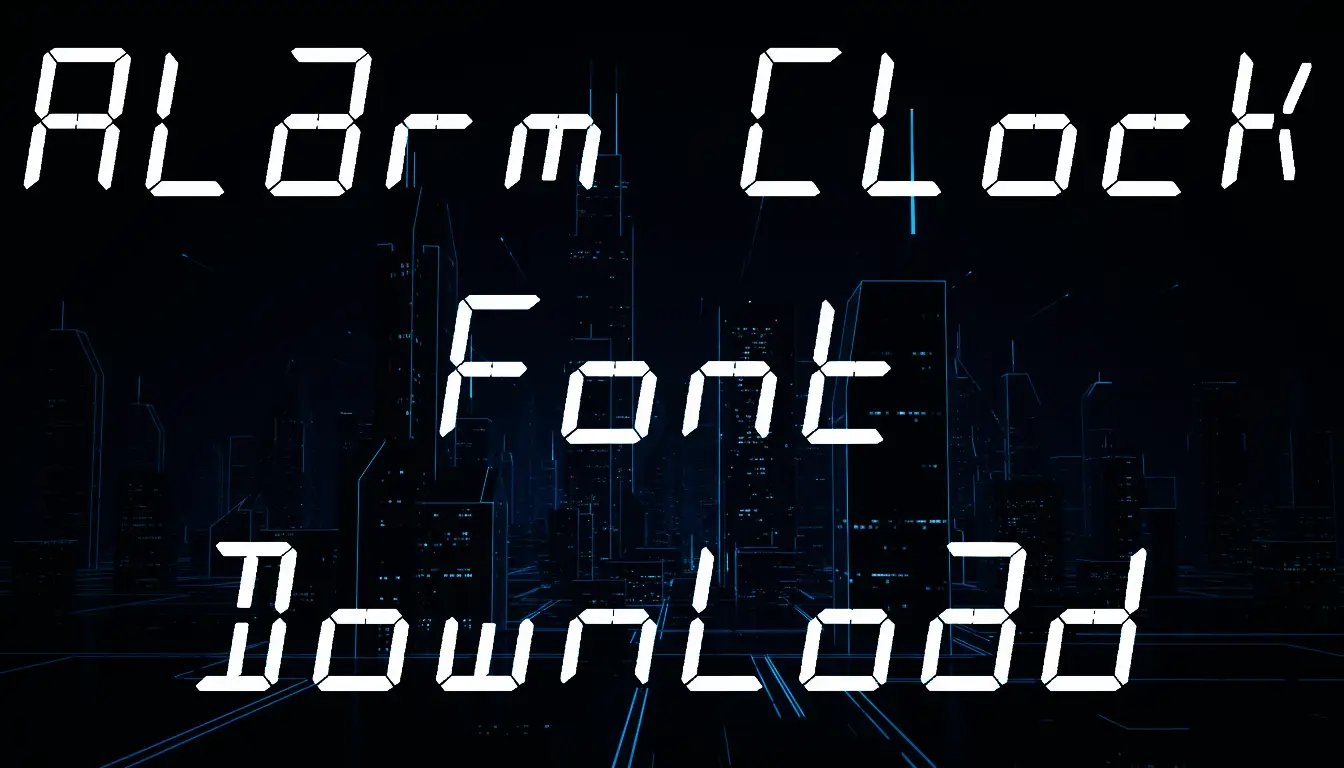
Alarm Clock Font
Alarm Clock
Alarm Clock is a techno font. Its angular, engineered shapes look right at home on screens and tech products. You can download it for free and test it with your own words in the preview above.
What You Can Type With Alarm Clock
With complete upper and lowercase letters and all ten digits, Alarm Clock is ready for real wording, not just a single headline. Common punctuation such as &, !, ? and @ is included as well. It also has the accented letters you need for Spanish, French, German, Portuguese and Italian.
Where Alarm Clock Works Best
Think of Alarm Clock for gaming logos, tech branding and futuristic posters. Try it on a dark background with a bright accent color for a sharp, modern look.
Does Alarm Clock support accented letters?
Yes. Alarm Clock includes the accented letters needed for Spanish, French, German, Portuguese and Italian, so it works for more than just English.
What fonts pair well with Alarm Clock?
A simple sans serif like Roboto keeps longer text easy to read next to it.